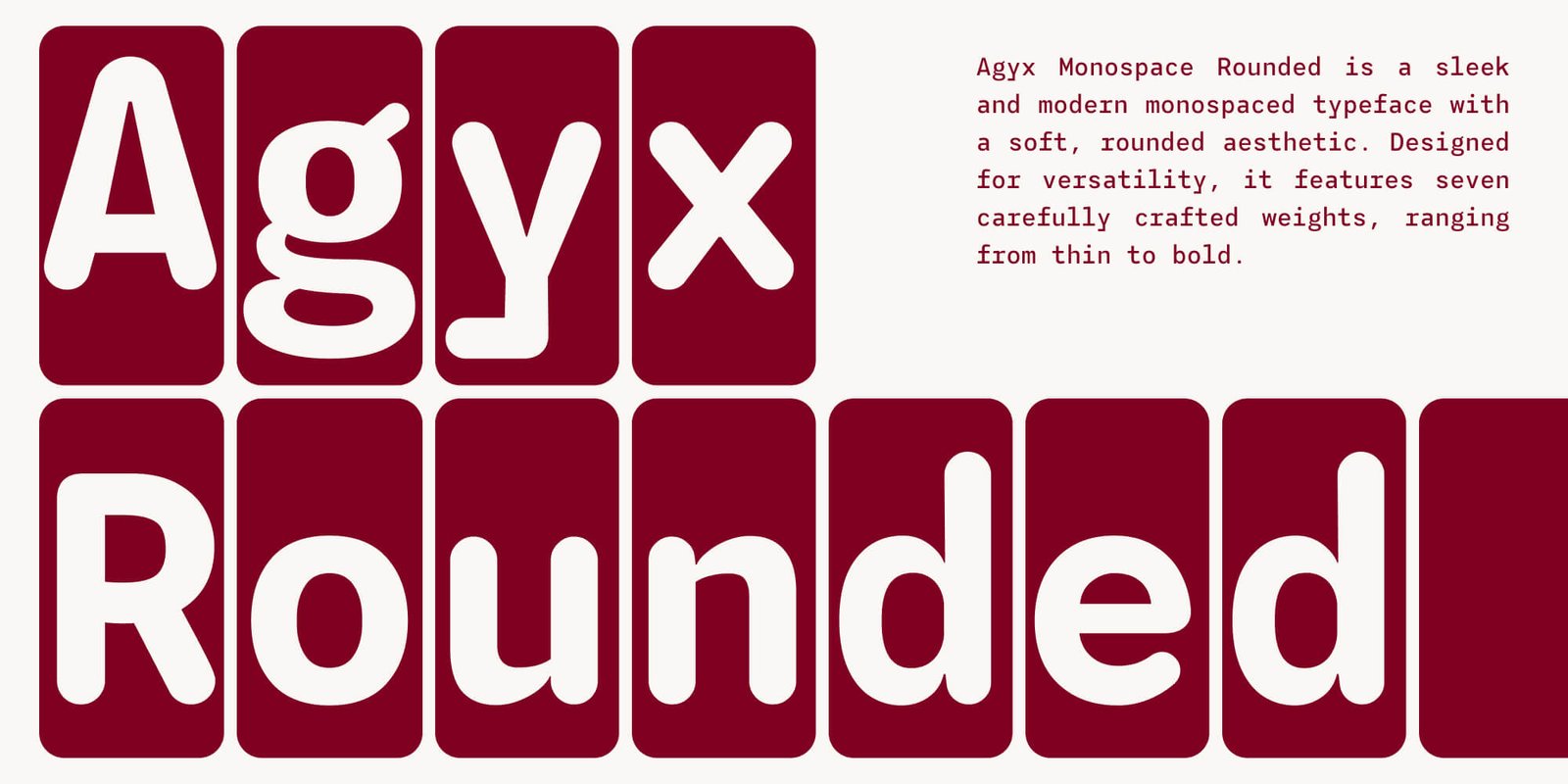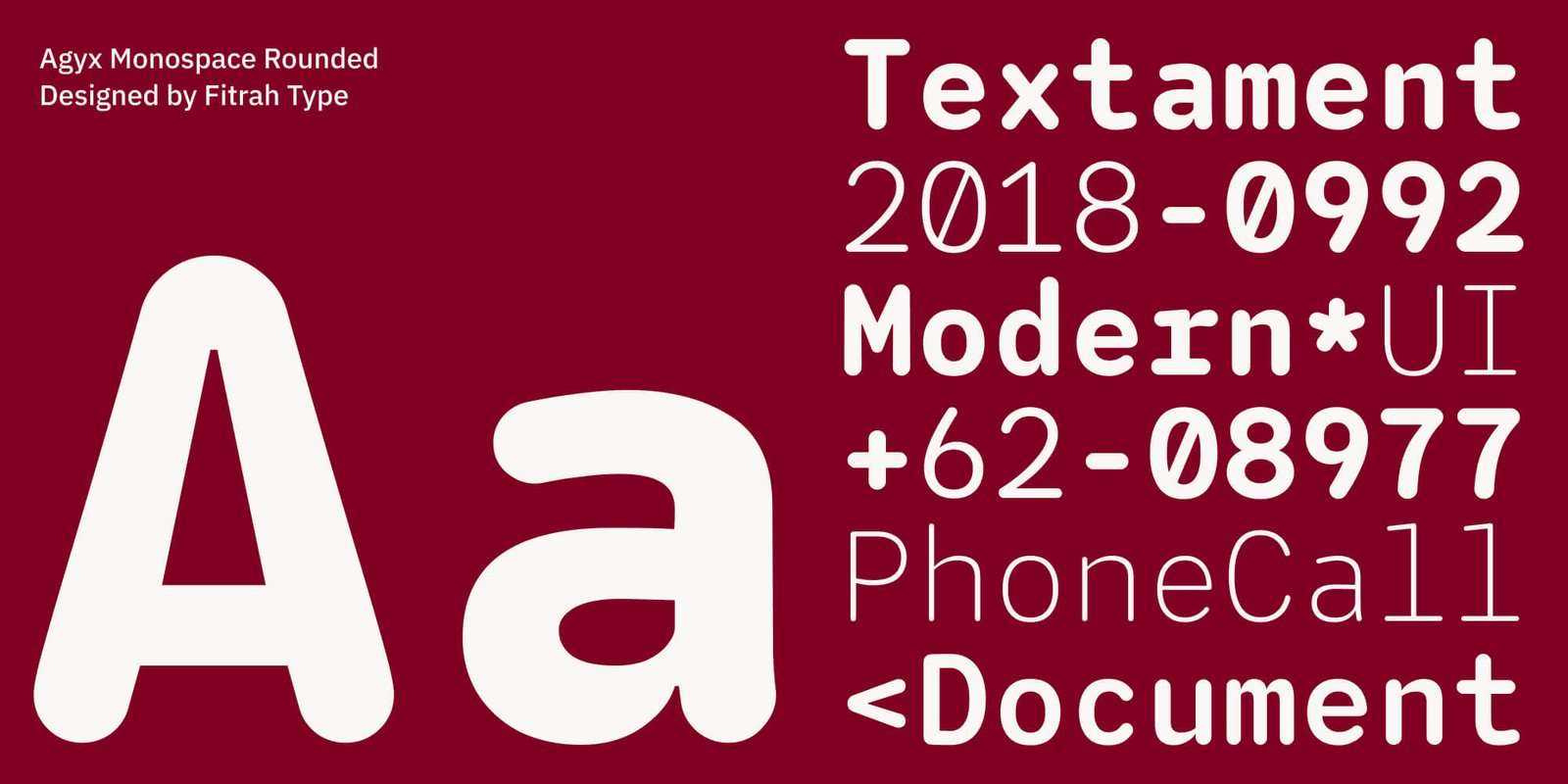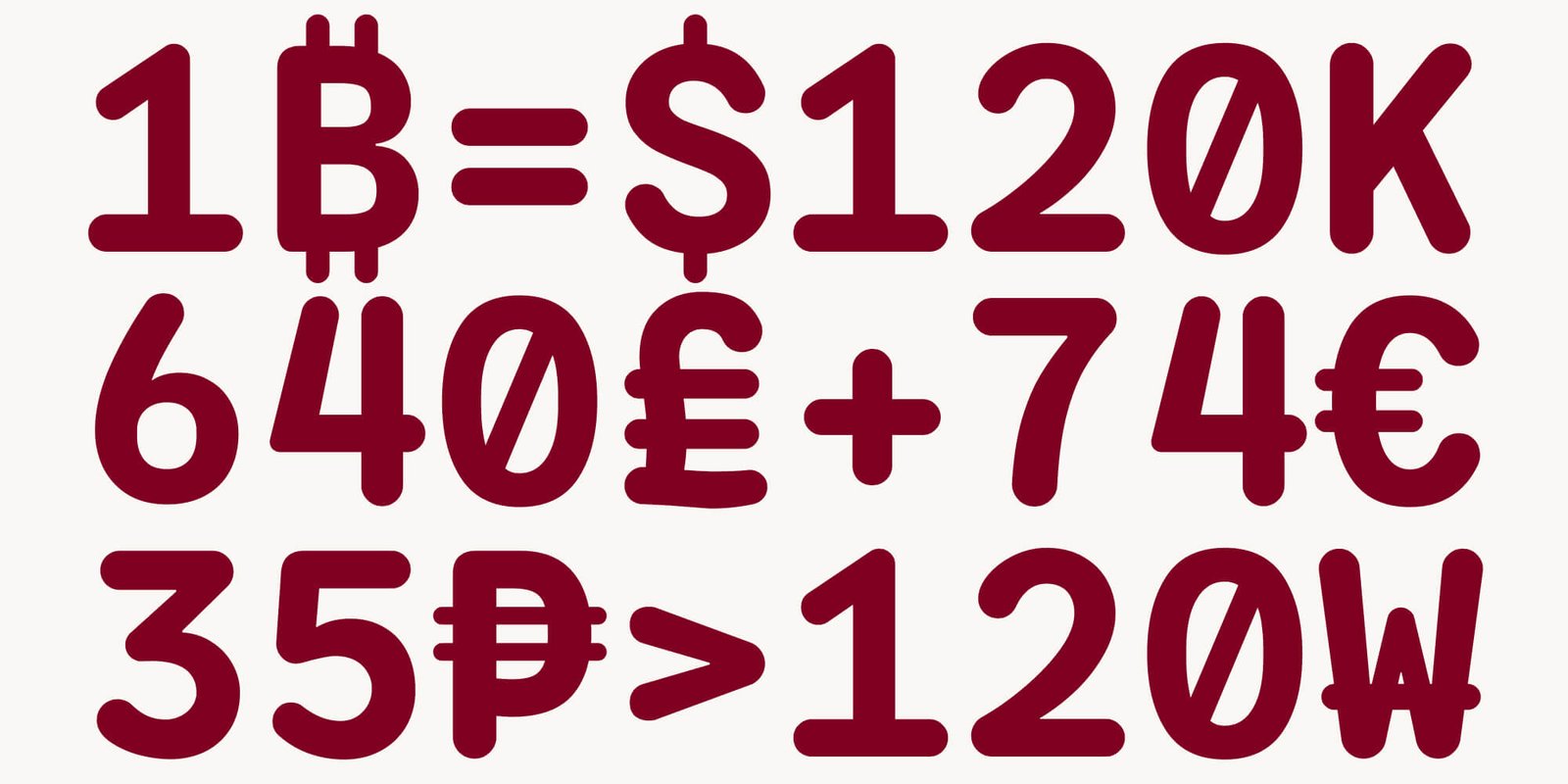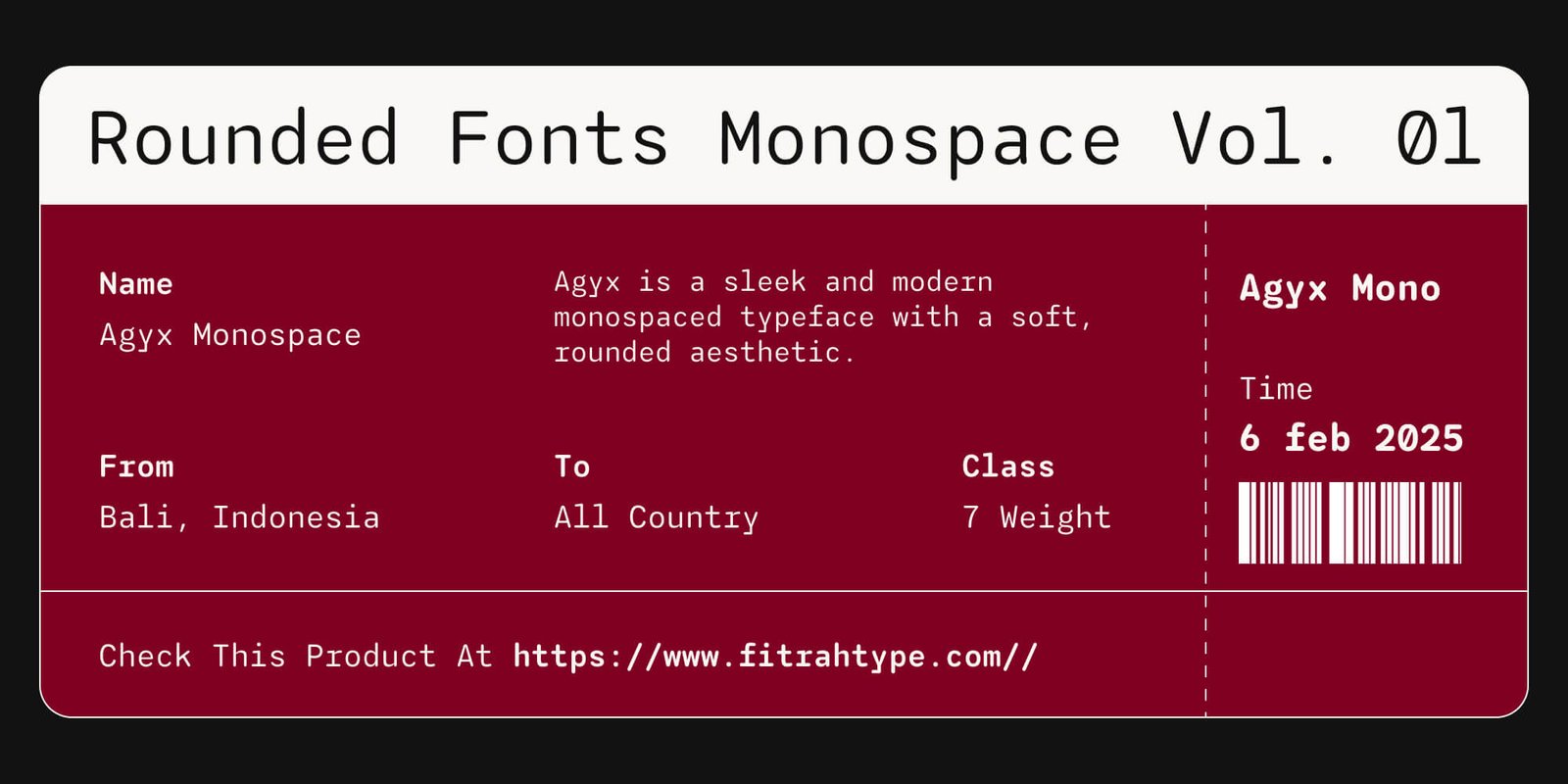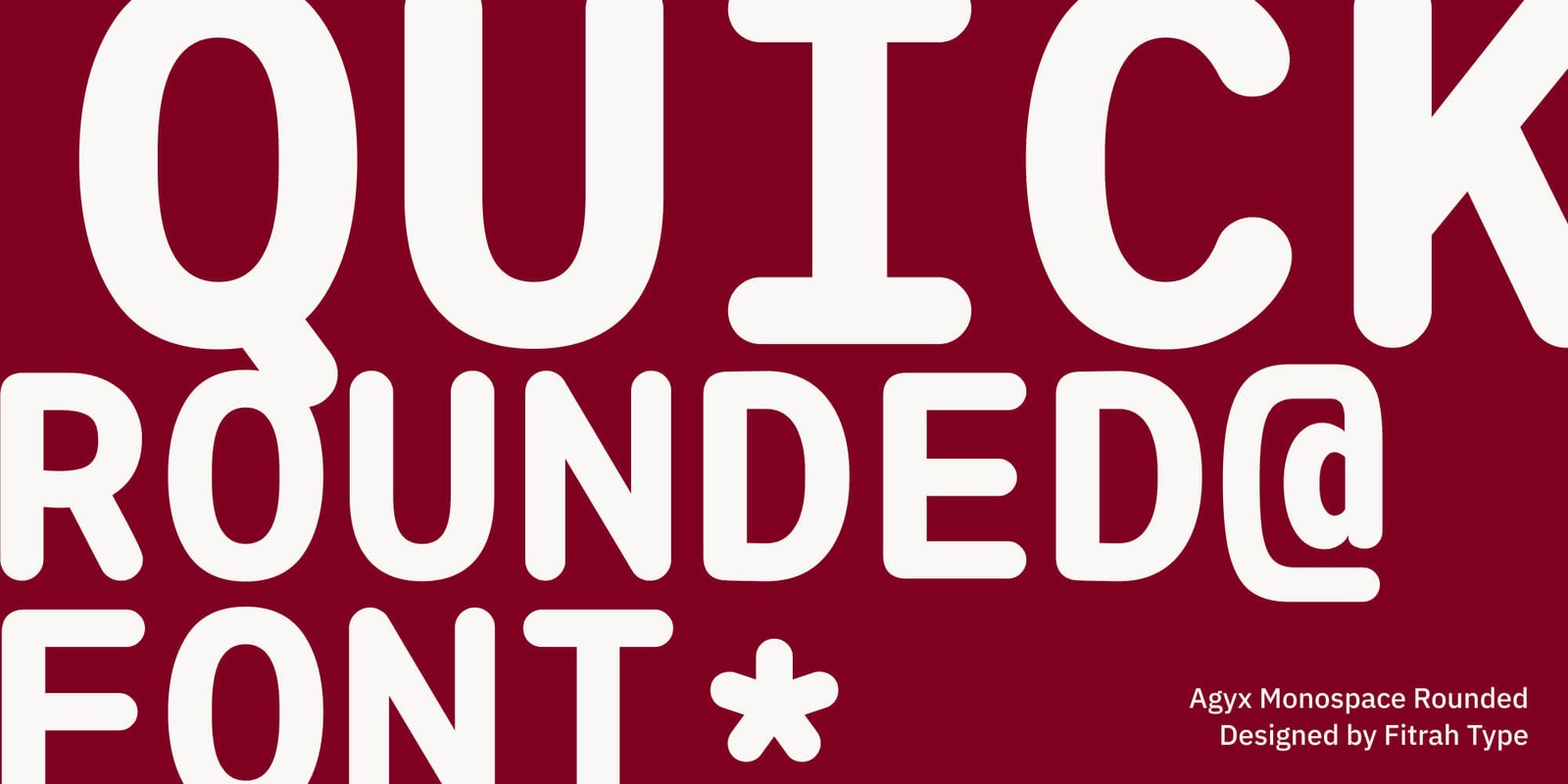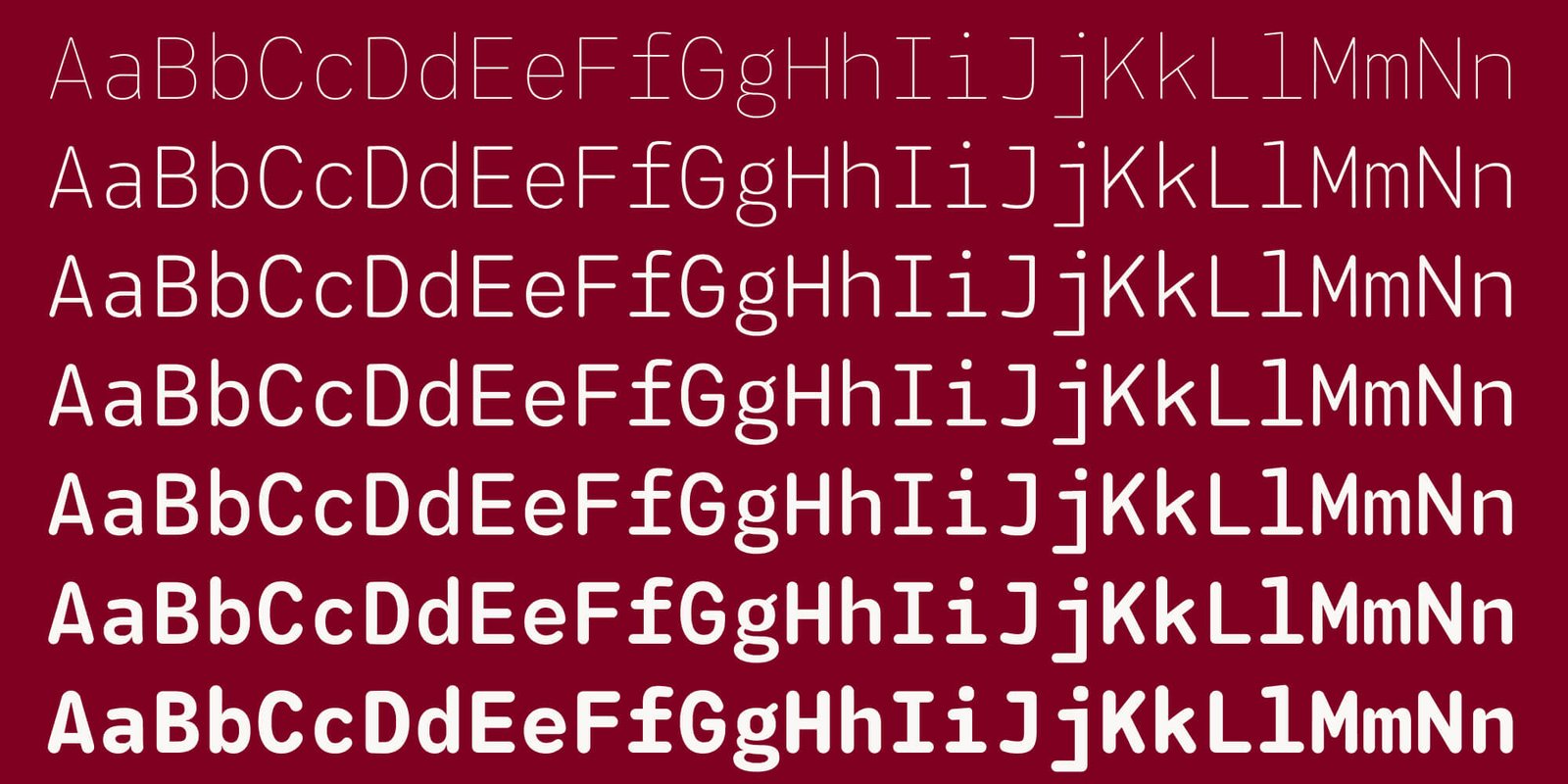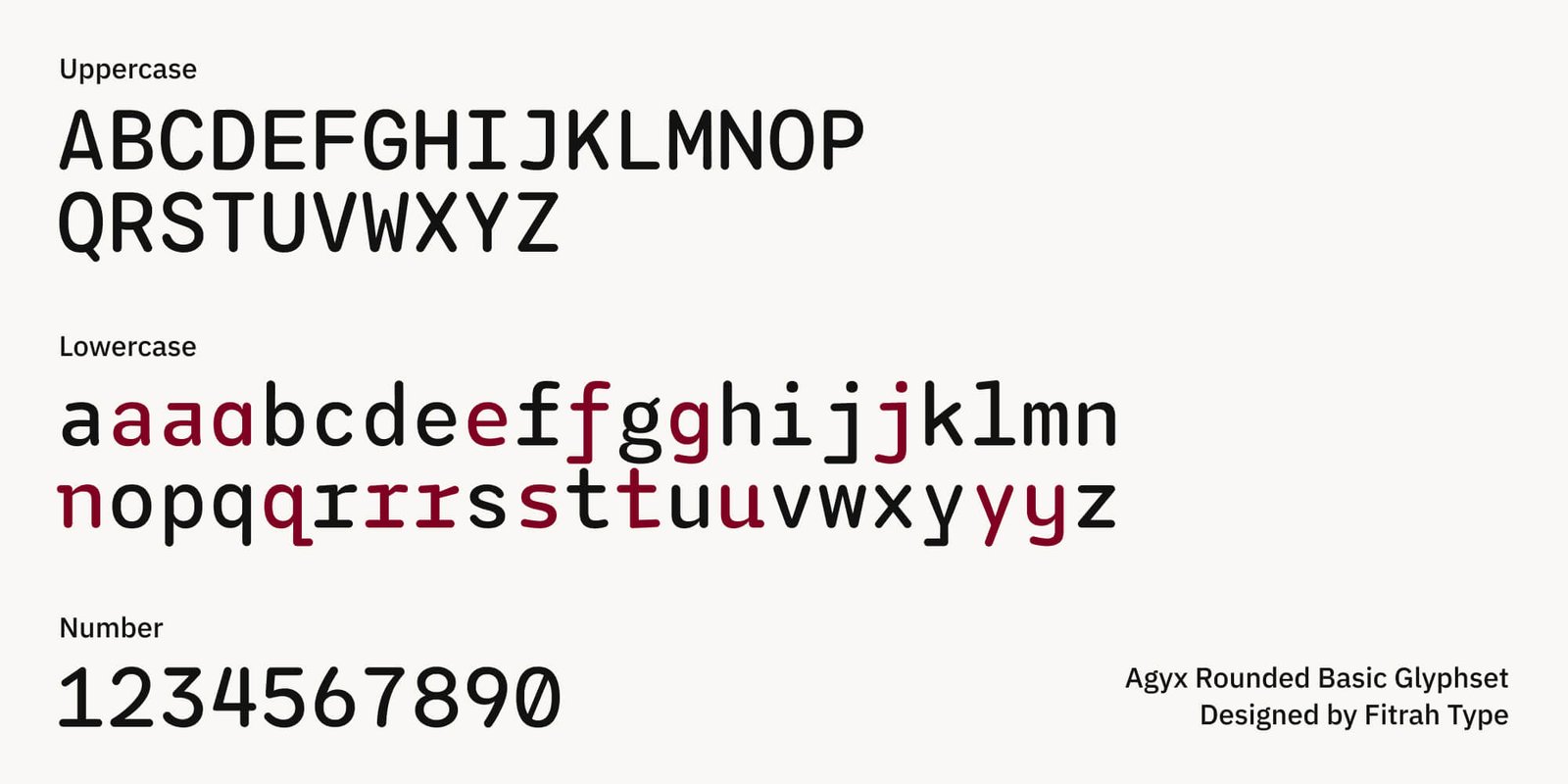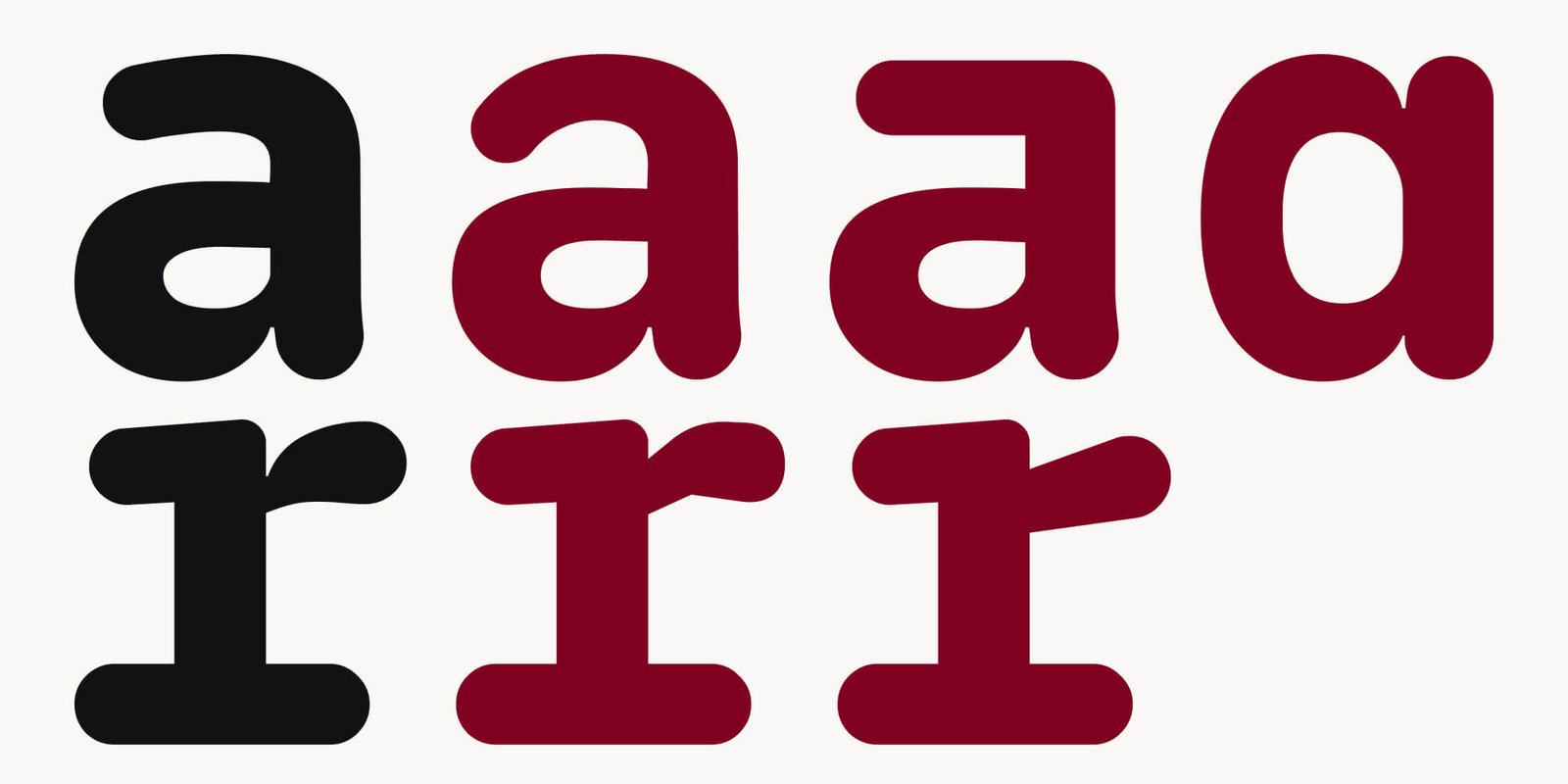
Agyx Mono Rounded
About Agyx Mono Rounded Font Family
Agyx Monospace Rounded is a sleek and modern monospaced typeface with a soft, rounded aesthetic. Designed for versatility, it features seven carefully crafted weights, ranging from thin to bold. With consistent spacing and carefully adjusted proportions, Agy Monospace Rounded ensures excellent readability across all seven weights. Whether used in digital applications or printed materials, its smooth curves and balanced letterforms provide a modern. The variety in weight selection allows for dynamic typographic compositions, offering flexibility for both functional and expressive designs.